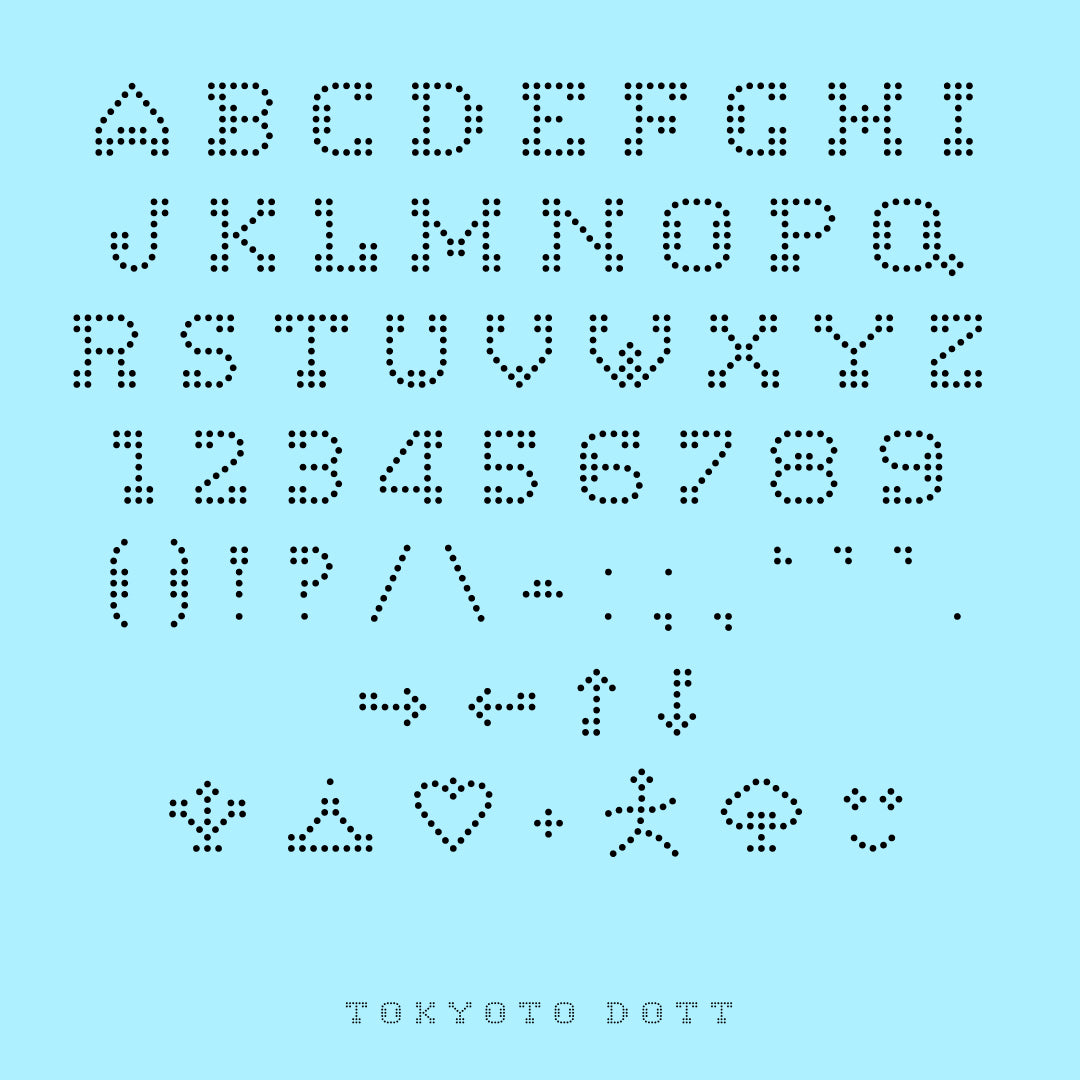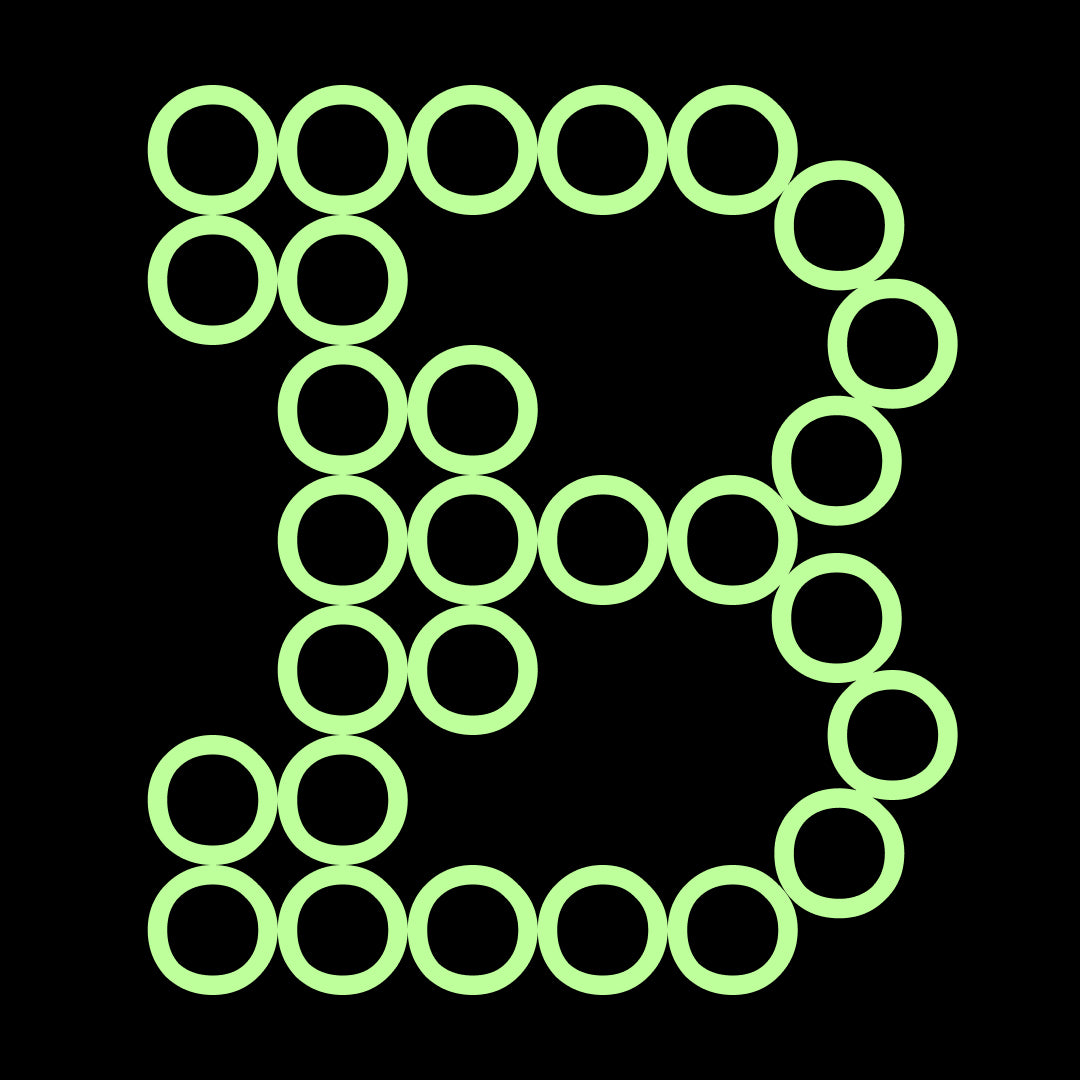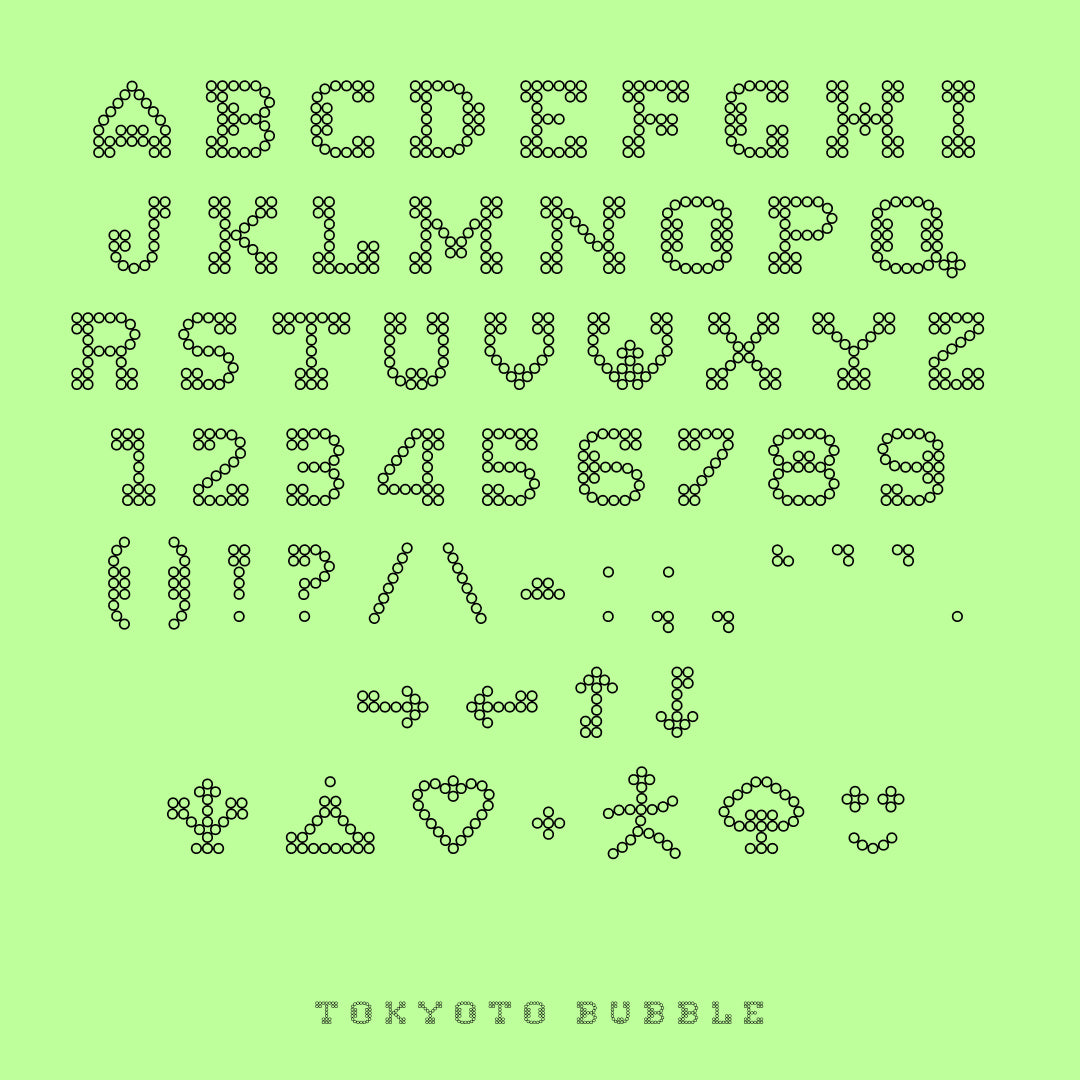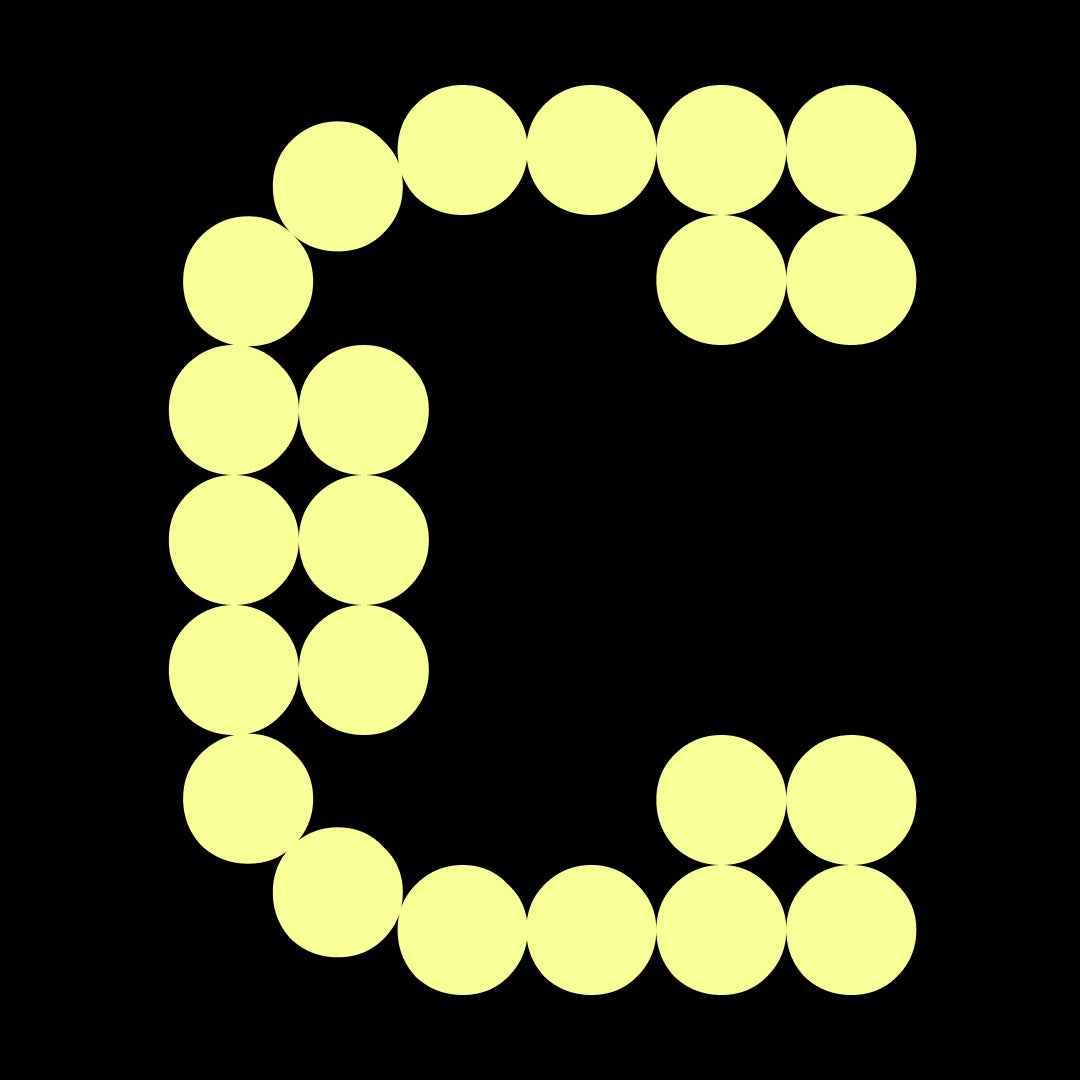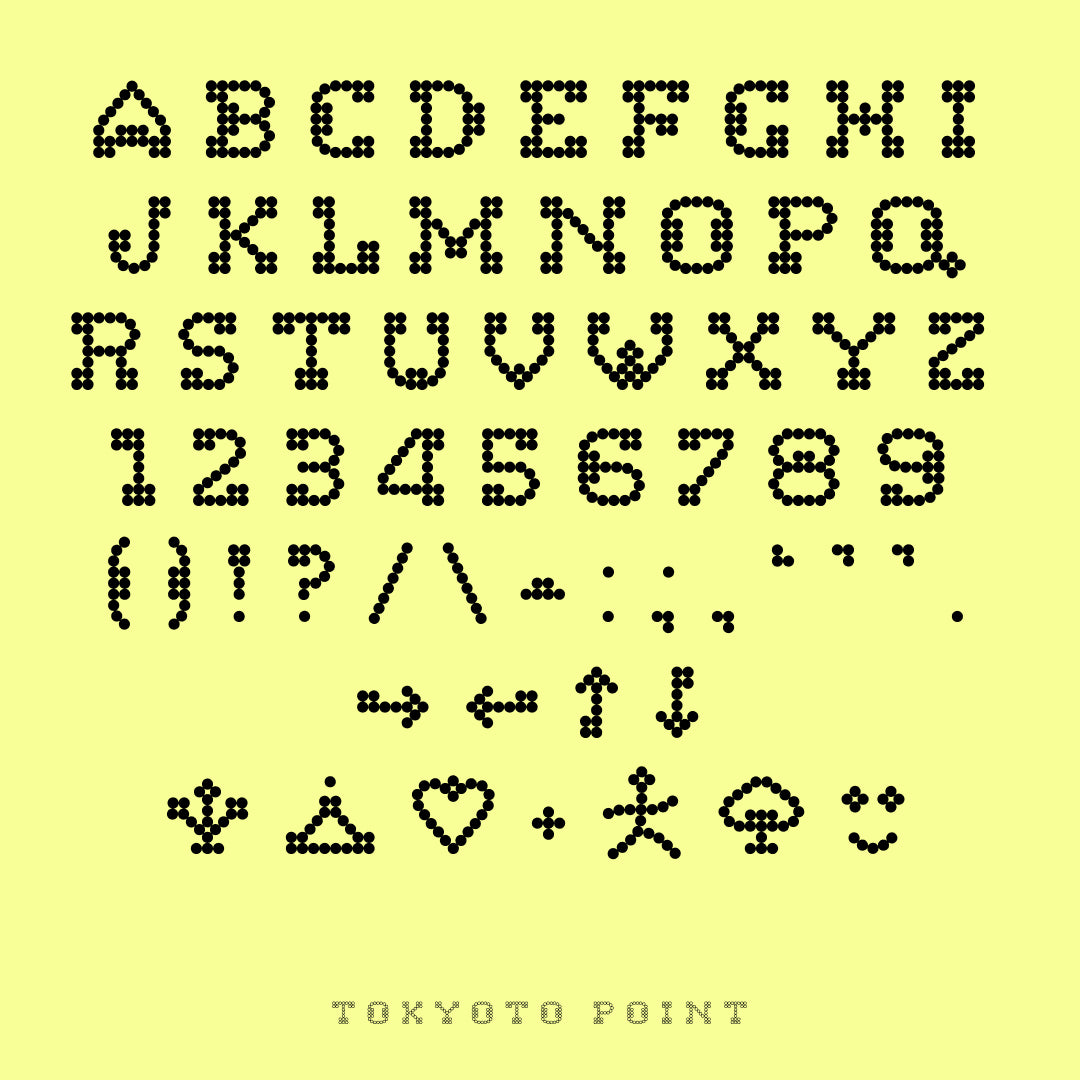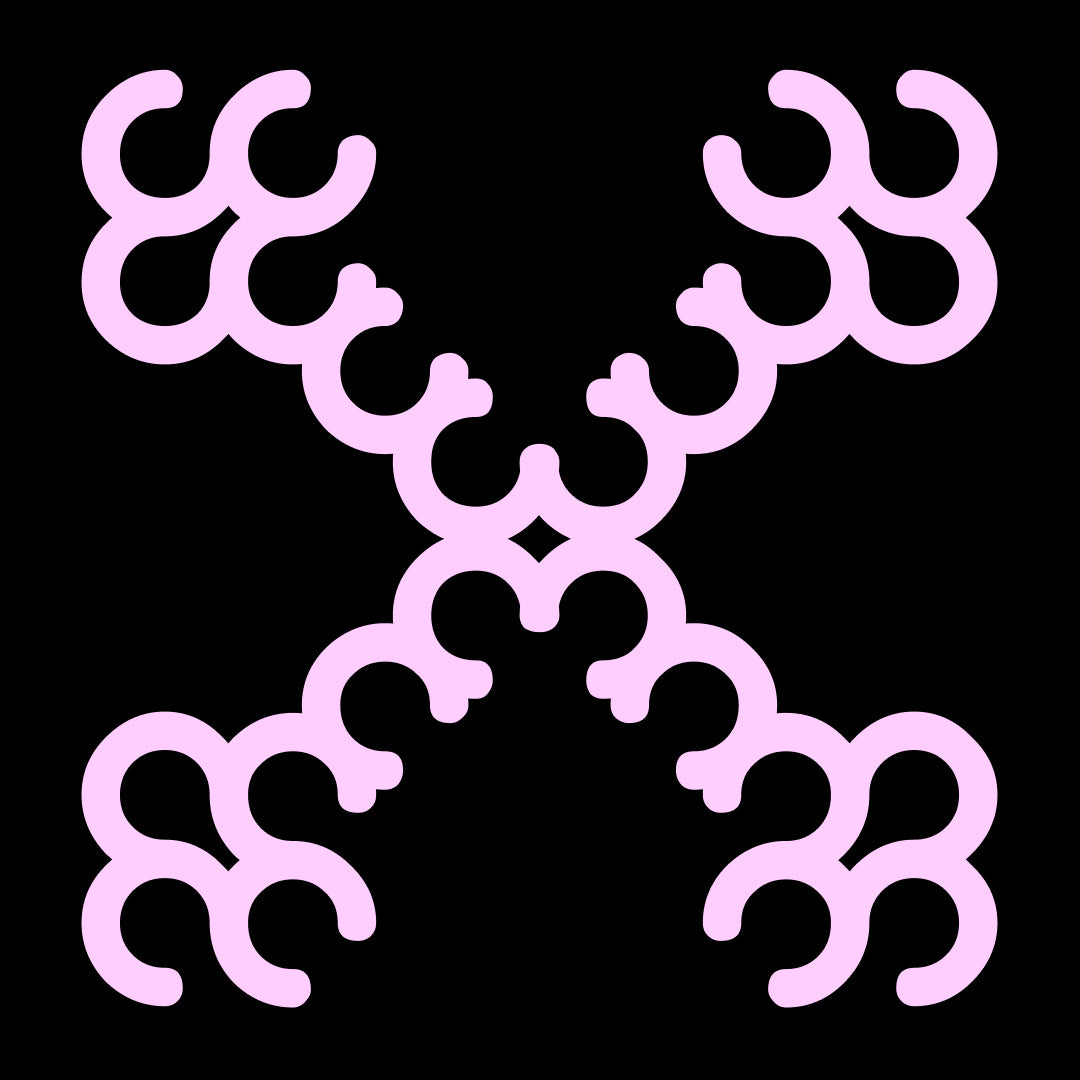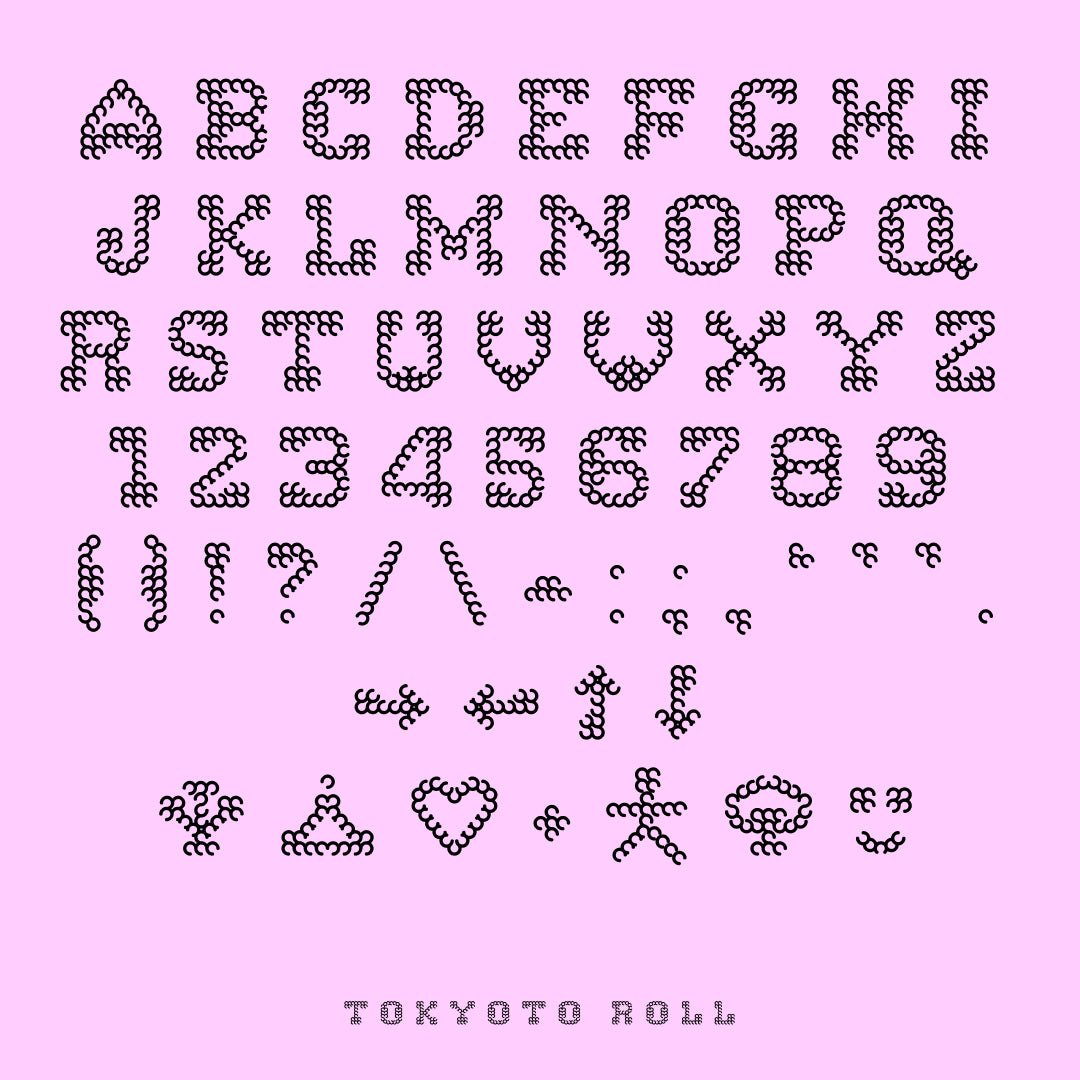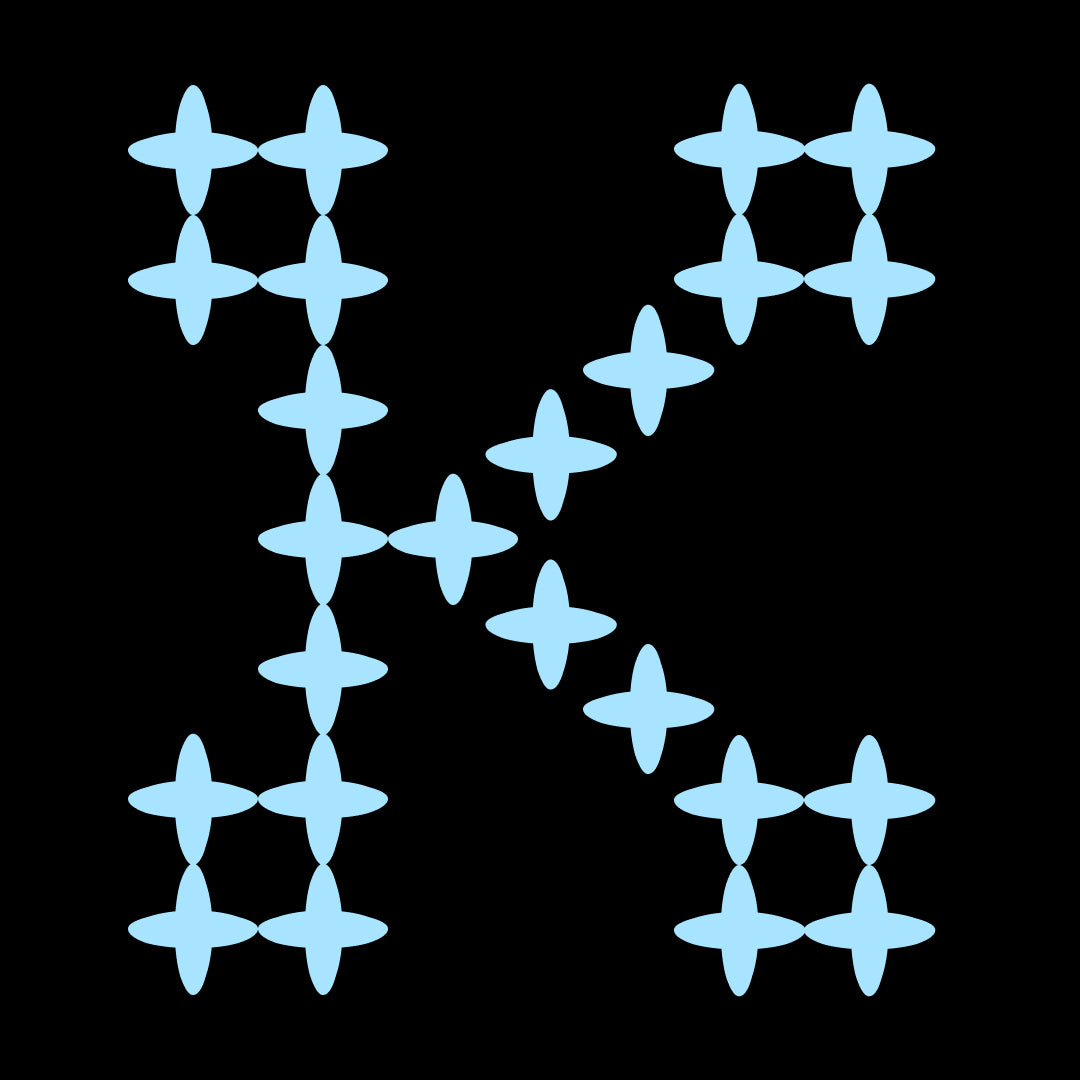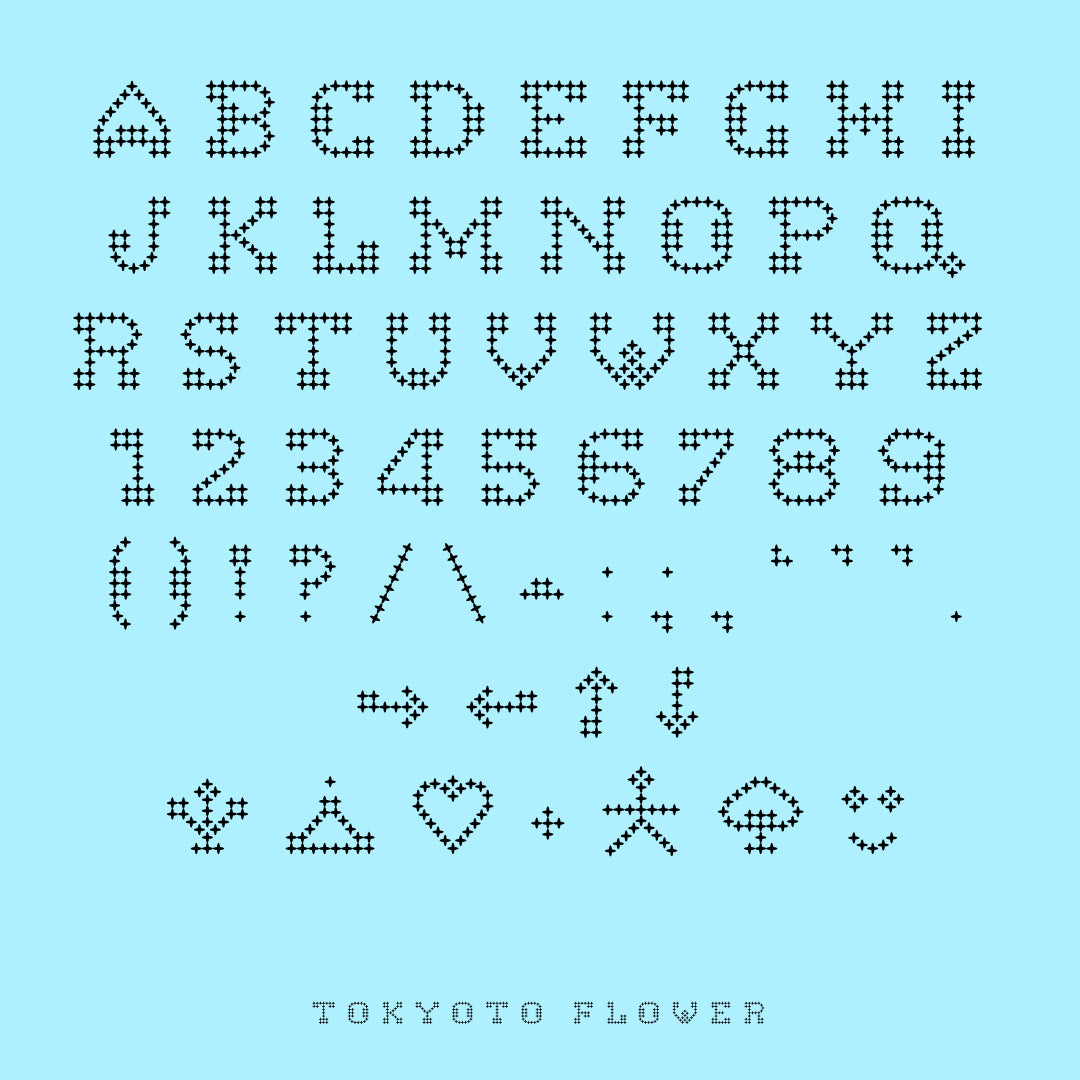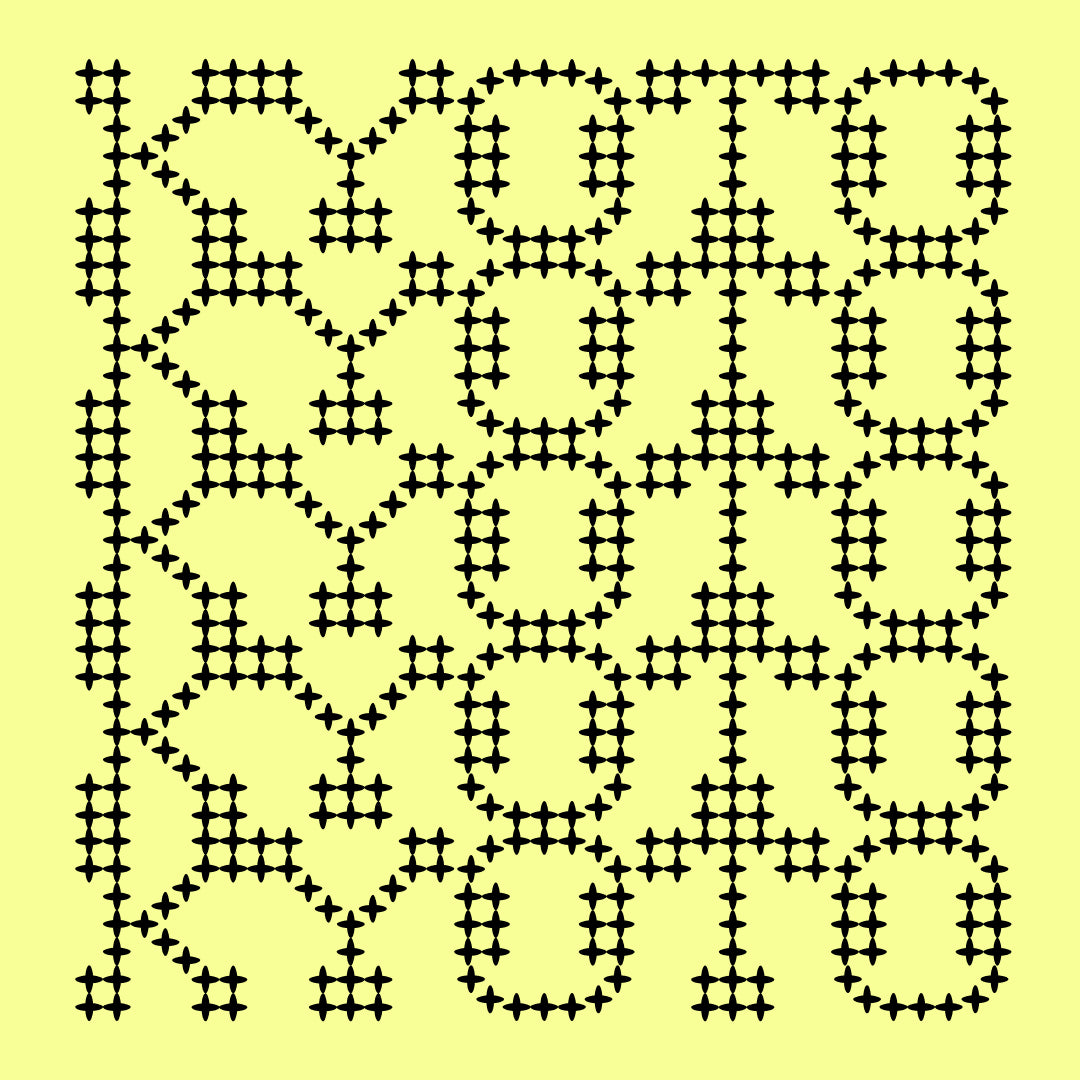
Tokyoto Typeface
Tokyoto is a modular typeface inspired by Japan: the curling waves of ukiyo-e prints, temple-roof ornaments, and the style of Tokyo and Kyoto signage. Every letter is built from a single repeating hook-shaped module that links into its neighbours, giving the letterforms a distinct rhythm as they run together.
The typeface comes in five styles: Dott, Bubble, Point, Roll and Flower, sharing the same underlying geometry but each giving the "knot" of every letter a different character, from a fine dot and a dotted outline to a bubbled, flowered, and fully rolled ribbon texture. The font is uppercase only, emphasizing the architectural, almost hieroglyph-like presence of each letter.
• 5 Styles (Dott, Bubble, Point, Roll, Flower)
• Arrows
• Emojis (Bonus)